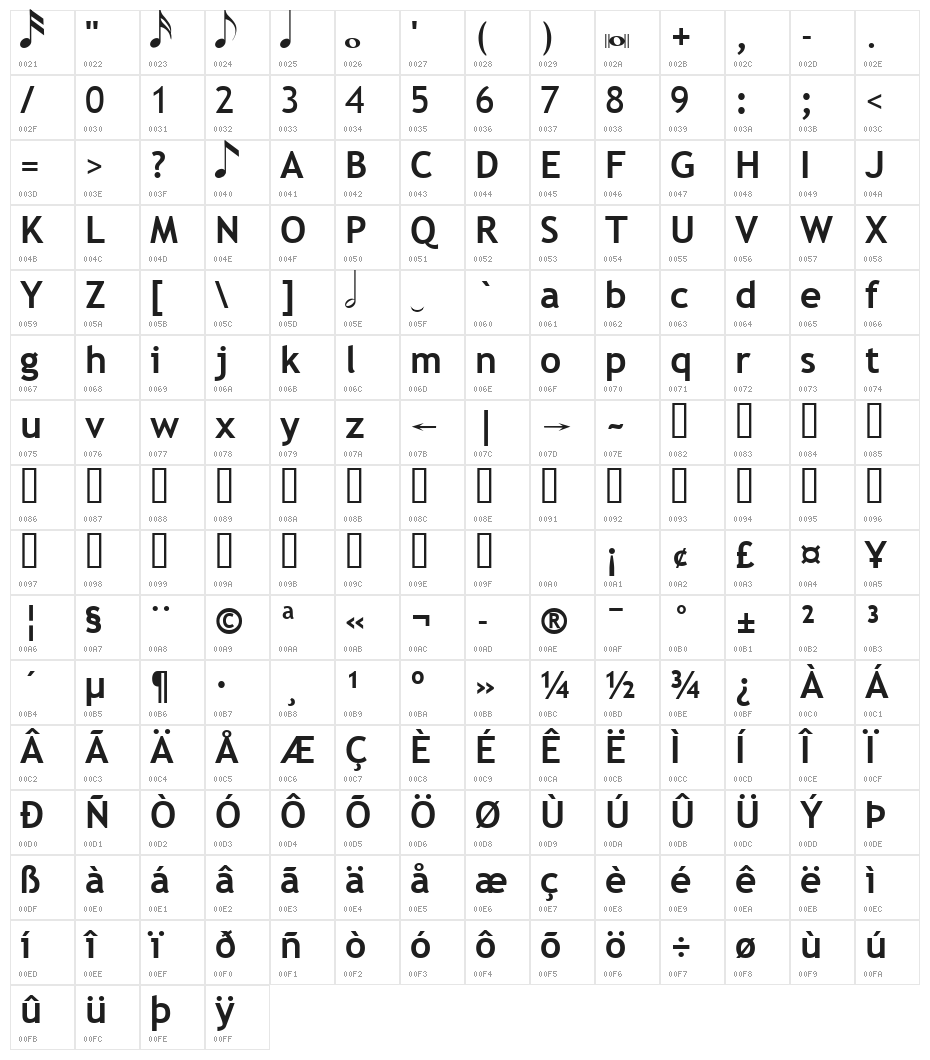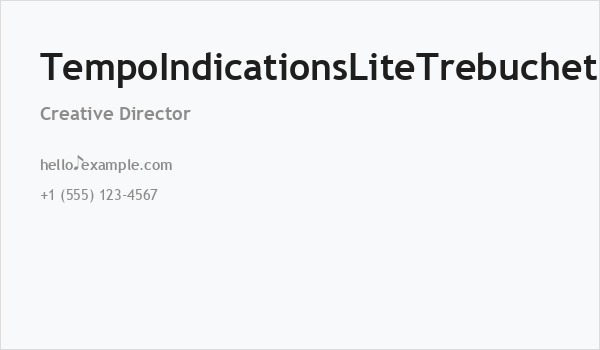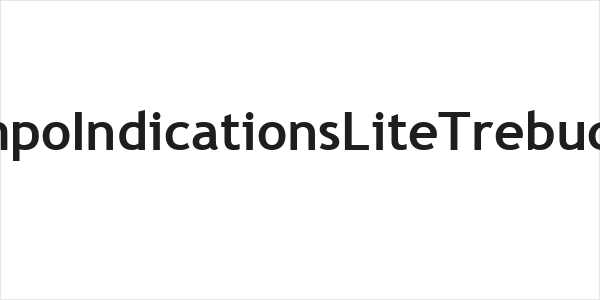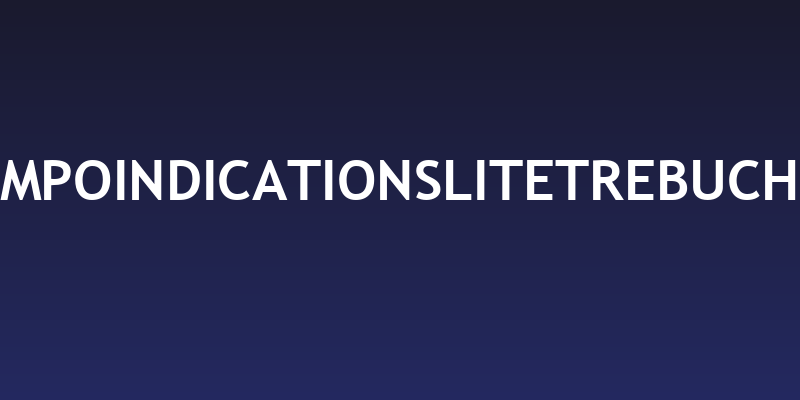
TempoIndicationsLiteTrebuchet Font
TempoIndicationsLiteTrebuchet Description
This font features a clean and modern sans-serif design, characterized by its straightforward and geometric letterforms. The uppercase letters are bold and assertive, while the lowercase letters maintain a consistent and harmonious appearance. The numerals are clear and legible, making them suitable for various applications. Special characters are included, adding versatility to the font. The overall style is professional and contemporary, making it ideal for digital and print media.